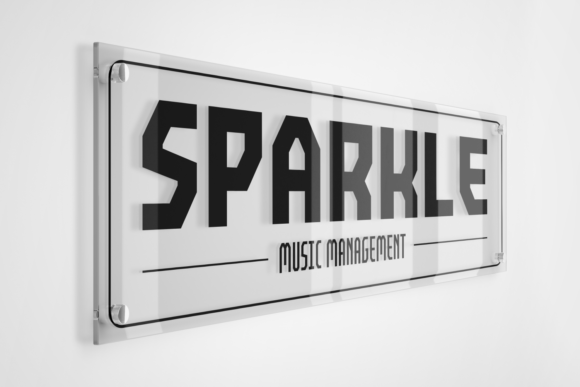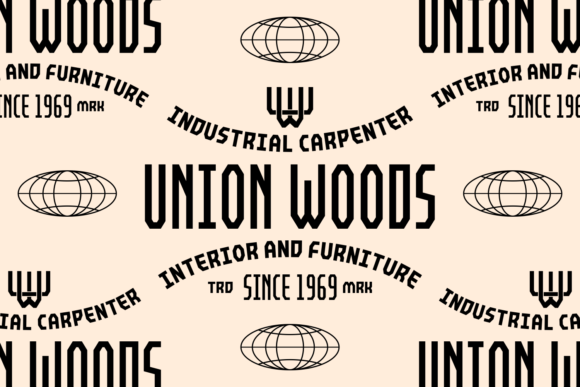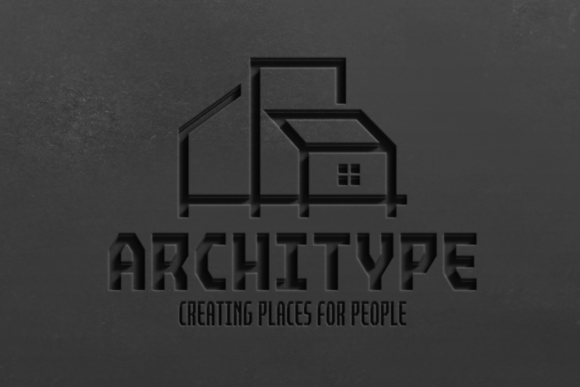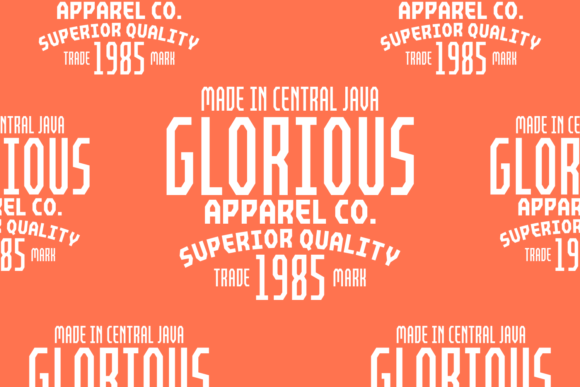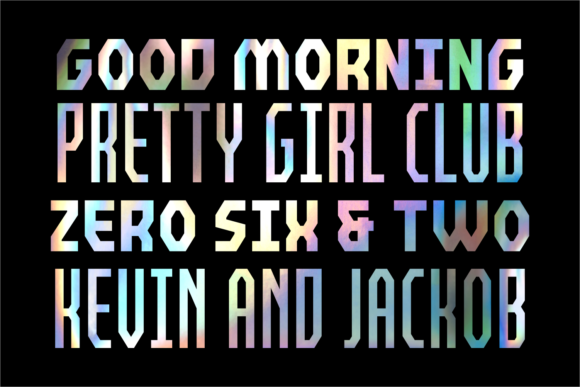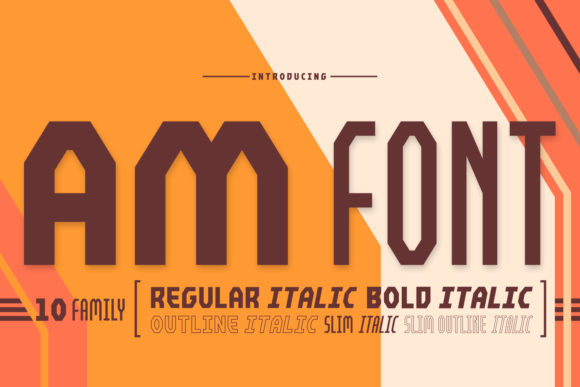
Introducing the AM Font: A Stunning Display Family for Creative Expression
The AM Font, also known as The AM Family, is a breathtakingly beautiful display family that embodies the perfect blend of expressiveness and professionalism. Designed to cater to the diverse needs of designers, crafters, and businesses alike, this font family is sure to make a lasting impression. With its unique balance of style and seriousness, the AM Font is an excellent choice for those looking to elevate their brand’s visual identity.
A Carefully Crafted Display Family
The AM Family is a meticulously crafted display family that boasts a distinctive character. Its design is a masterful blend of creative flair and business acumen, making it an ideal choice for businesses, entrepreneurs, and designers seeking to make a statement. Whether you’re looking to create a bold brand identity, craft eye-catching headlines, or simply add a touch of elegance to your designs, the AM Font is sure to deliver.
Expressive yet Professional
One of the standout features of the AM Font is its ability to convey a sense of expressiveness while maintaining a professional demeanor. This delicate balance makes it an excellent choice for a wide range of applications, from branding and advertising to packaging and editorial design. With the AM Font, you can add a touch of personality to your designs without compromising on sophistication or elegance.
Key Features of the AM Font
- Unique Character: The AM Font boasts a distinctive character that sets it apart from other display families.
- Expressive yet Professional: This font family strikes the perfect balance between creativity and professionalism.
- Versatile: The AM Font is suitable for a wide range of applications, from branding and advertising to packaging and editorial design.
- High-Quality Design: The AM Family is a carefully crafted display family that meets the highest standards of design excellence.
Why Choose the AM Font?
There are many reasons why designers and crafters should consider the AM Font for their projects. Here are just a few:
- Stand out from the Crowd: With its unique character and expressive yet professional vibe, the AM Font is sure to help your designs stand out from the crowd.
- Elegance and Sophistication: This font family adds a touch of elegance and sophistication to any design, making it perfect for high-end brands and luxury products.
- Flexibility: The AM Font is versatile and can be used in a wide range of applications, from digital designs to print materials.
- High-Quality Design: The AM Family is designed to meet the highest standards of design excellence, ensuring that your designs look professional and polished.
In conclusion, the AM Font is a stunning display family that offers a unique blend of expressiveness and professionalism. With its carefully crafted design, versatile applications, and high-quality features, this font family is an excellent choice for designers, crafters, and businesses looking to elevate their brand’s visual identity. Whether you’re looking to create a bold brand statement, craft eye-catching headlines, or simply add a touch of elegance to your designs, the AM Font is sure to deliver.